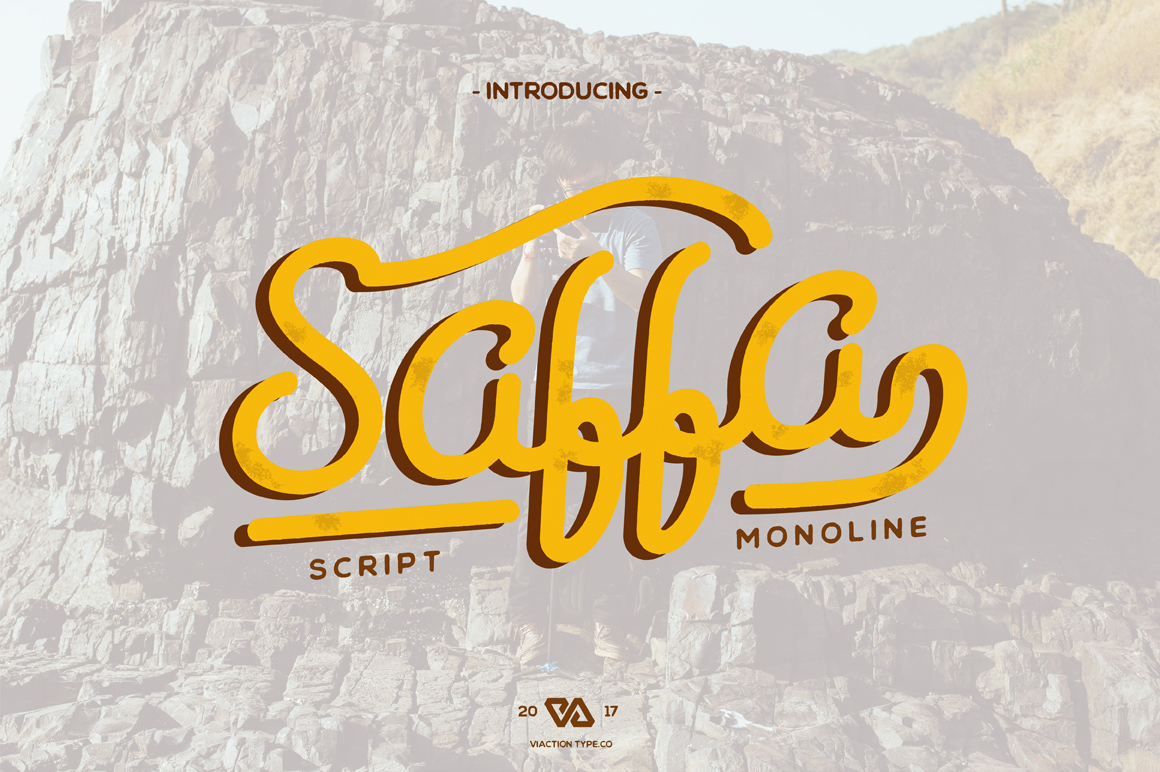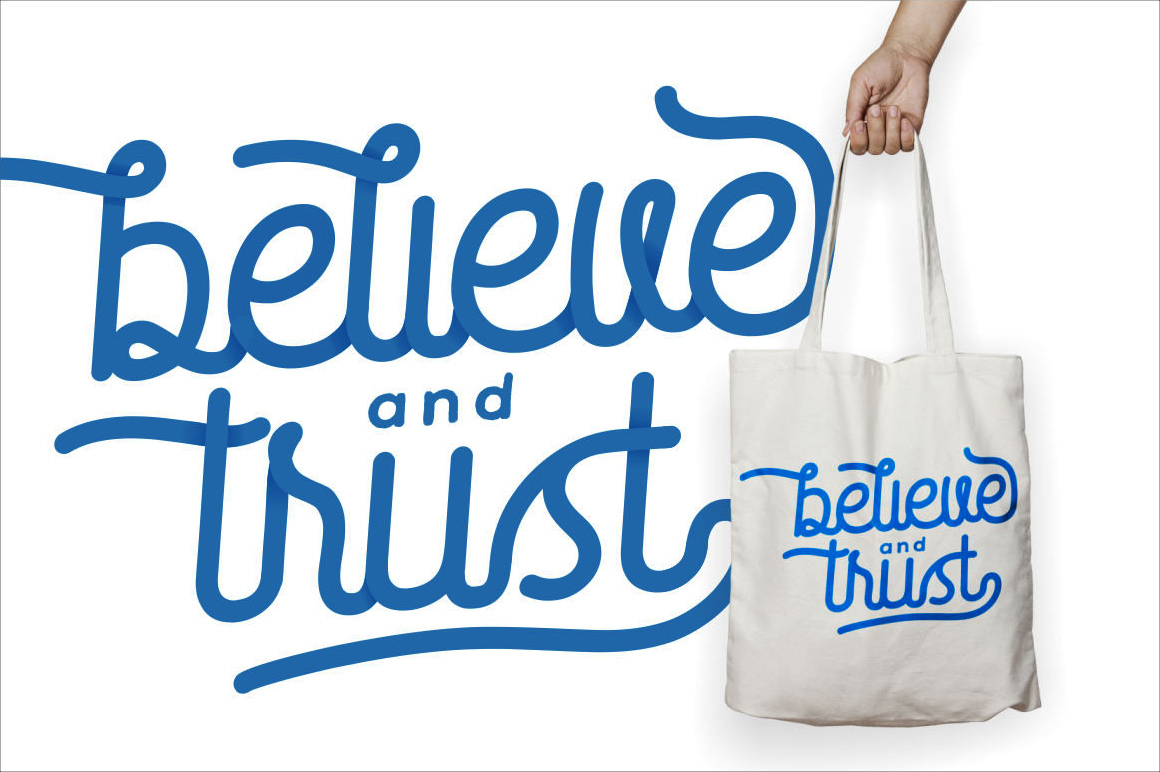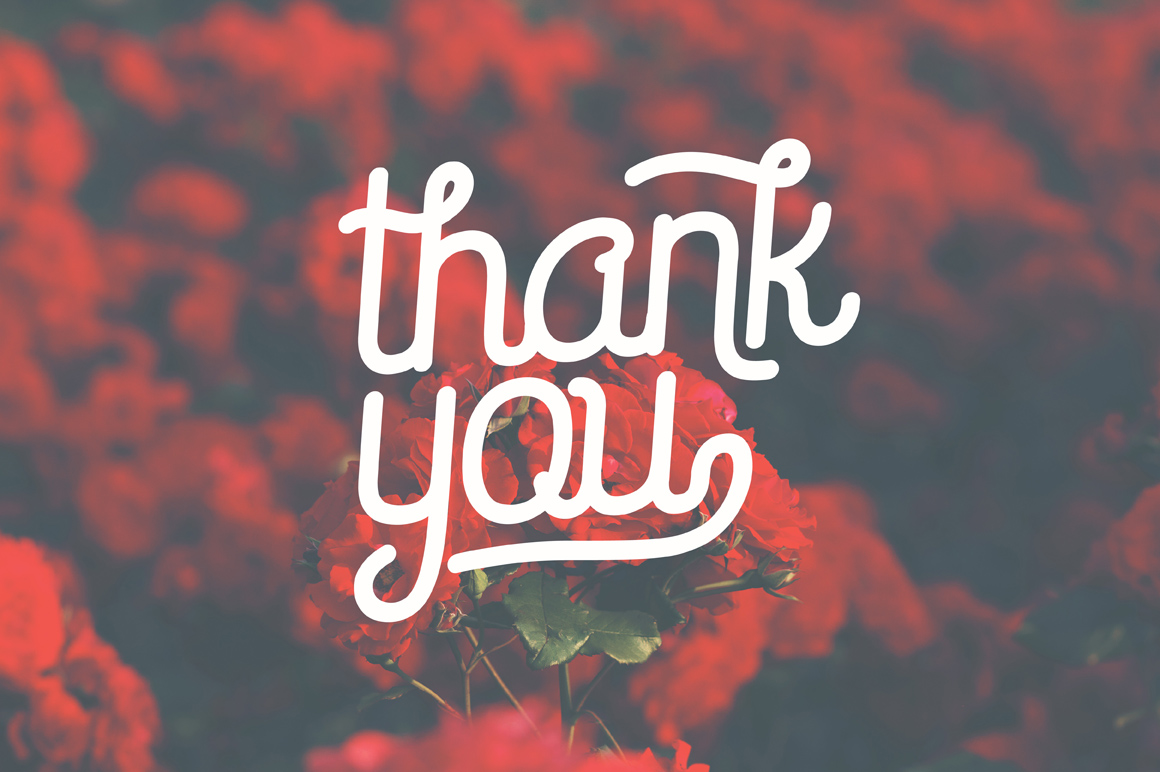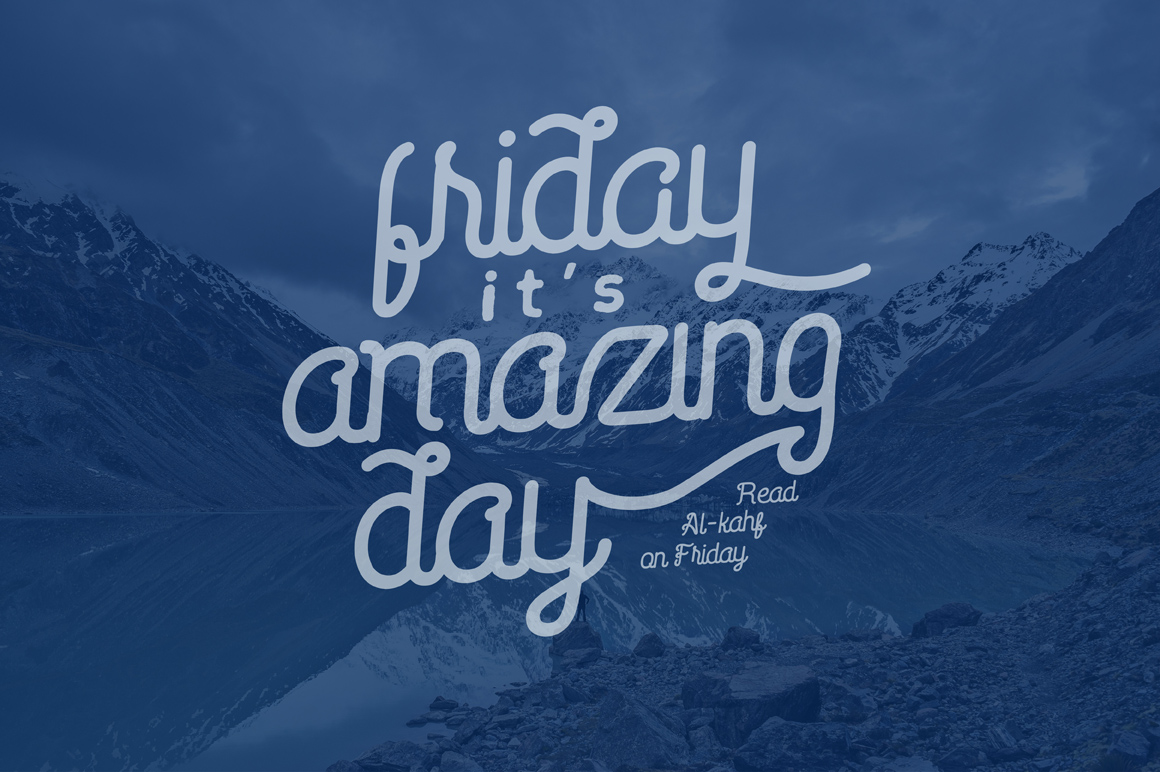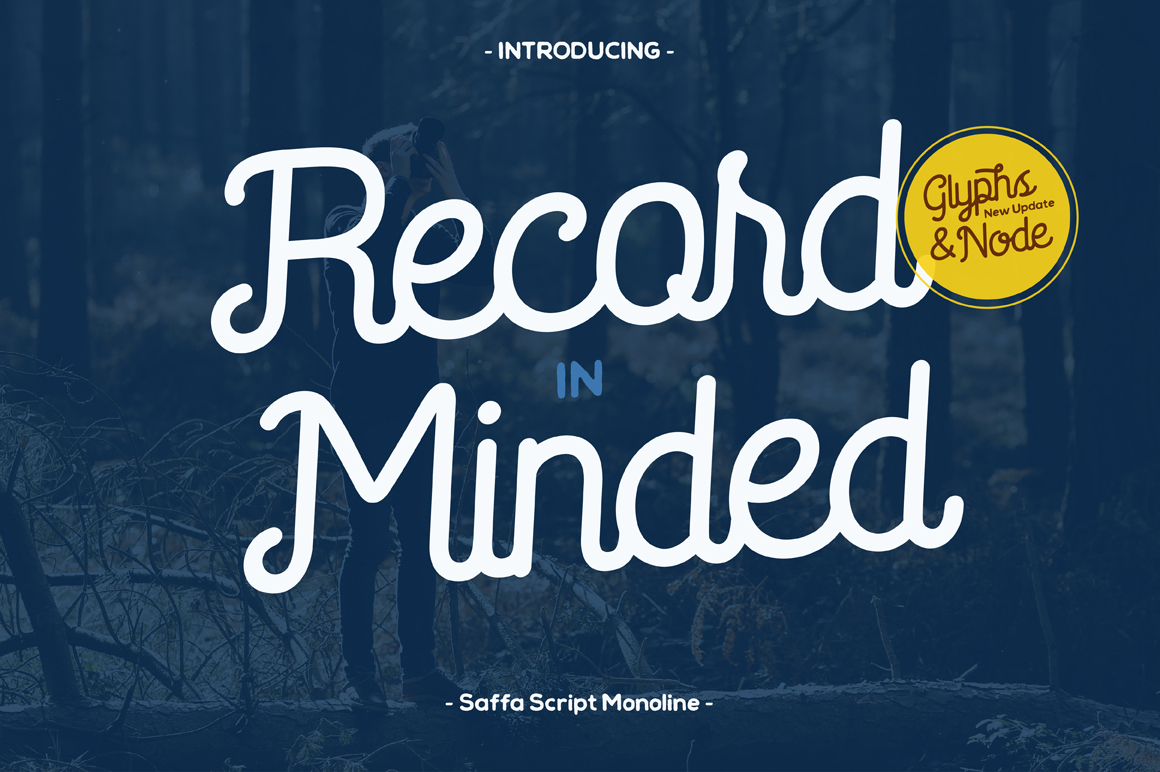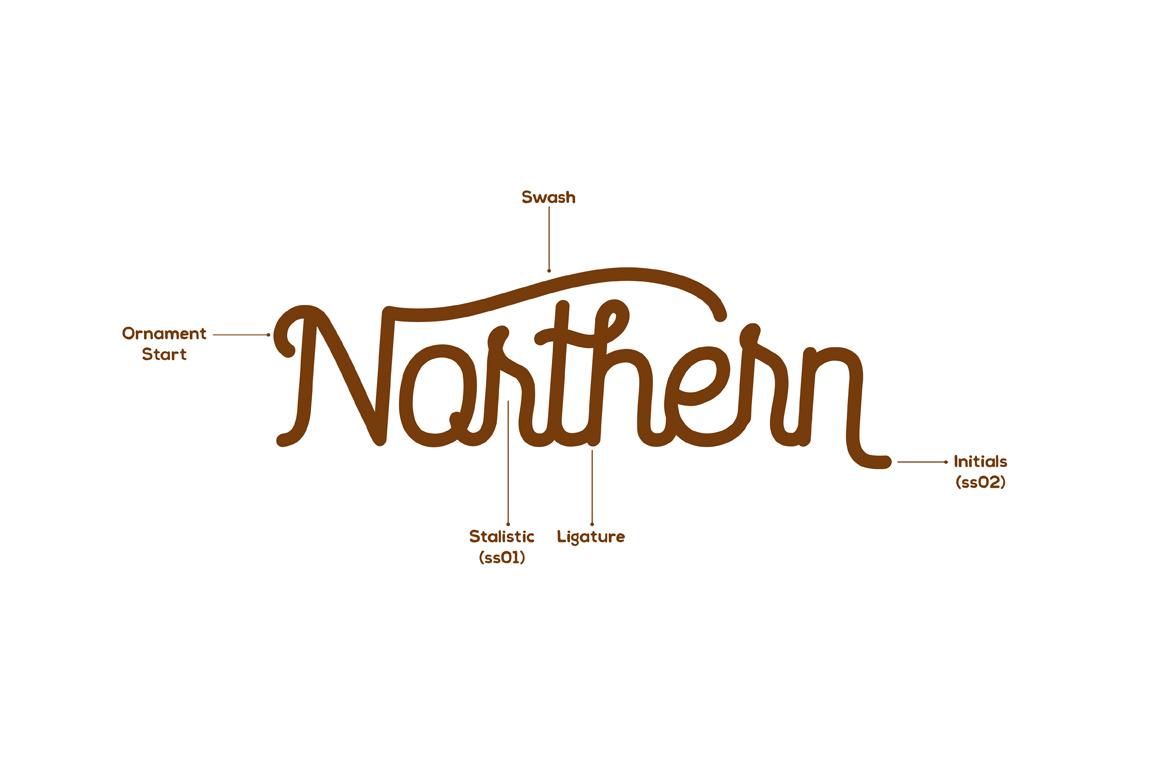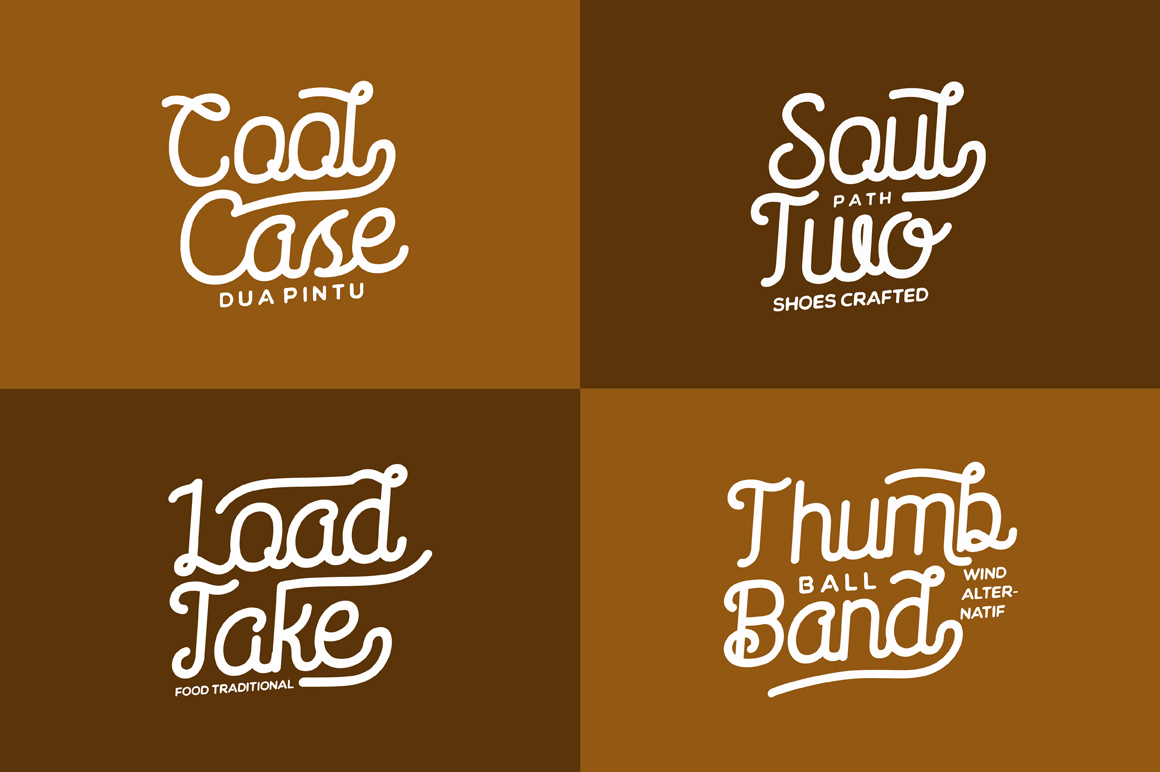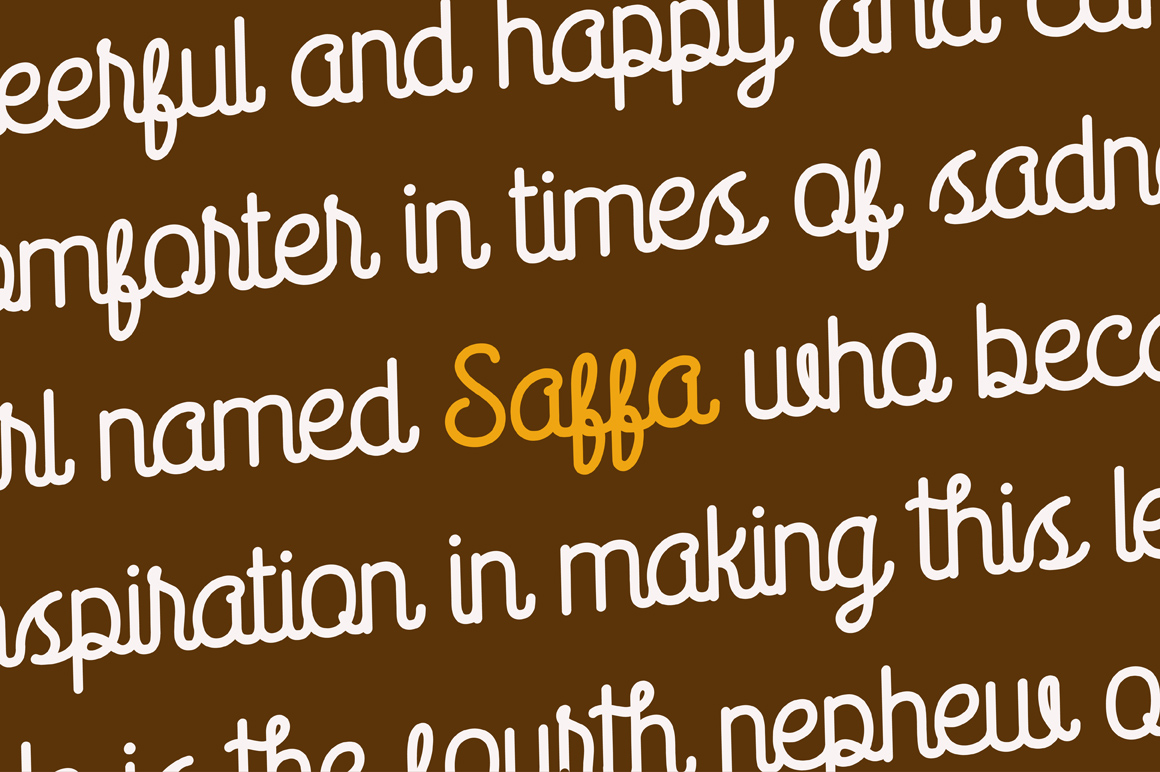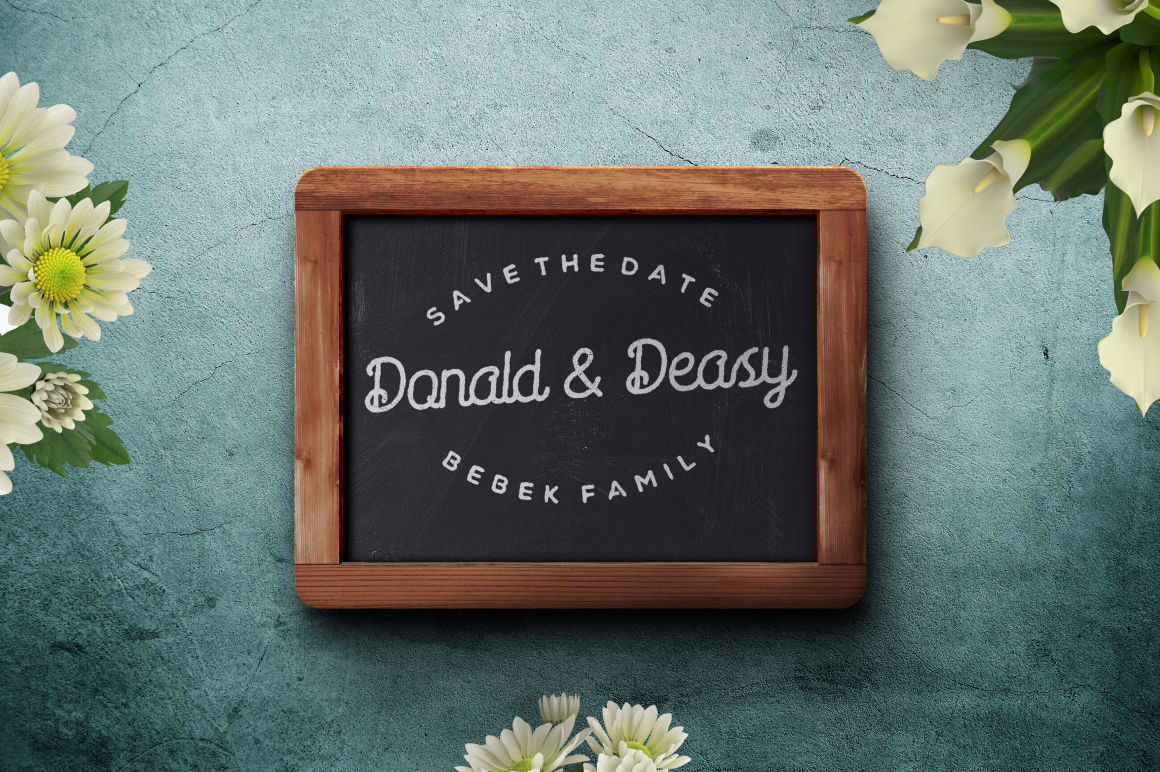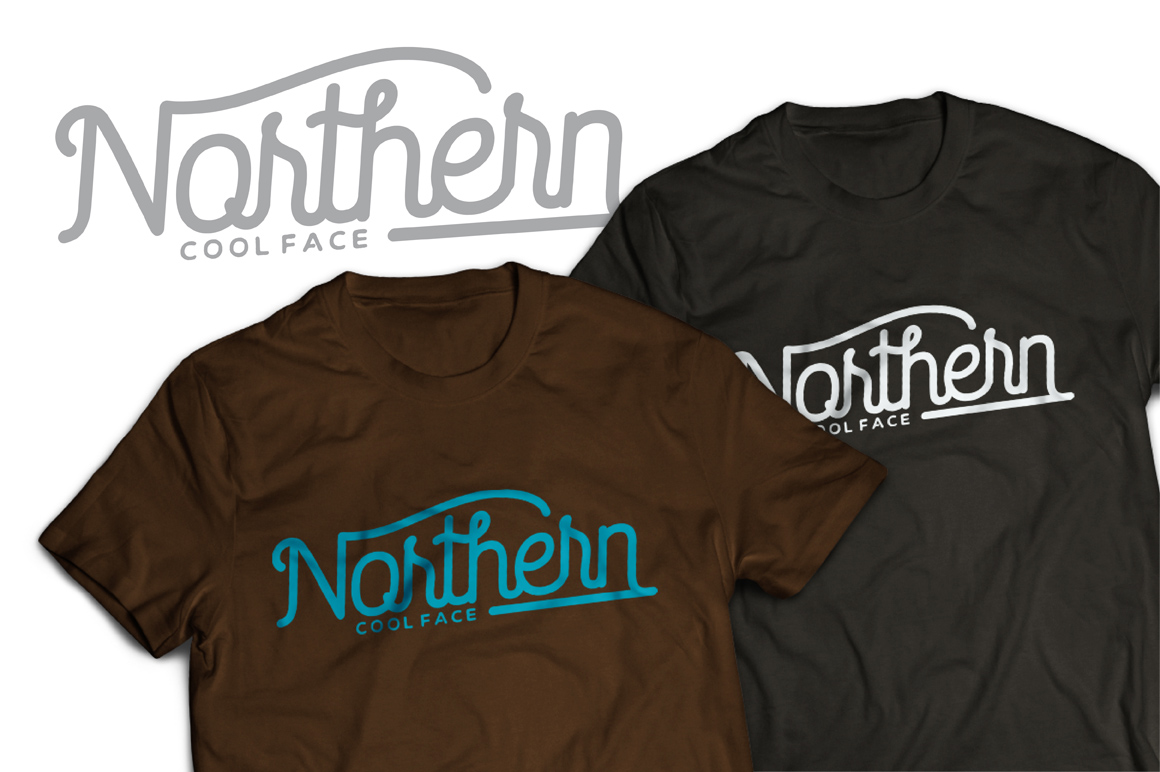
Saffa Font
About Saffa Font
Saffa is simply beautiful.
Saffa is a monoline script that is bold classic and new, created with original handwriting. Download Saffa and see how remarkable your designs can be.